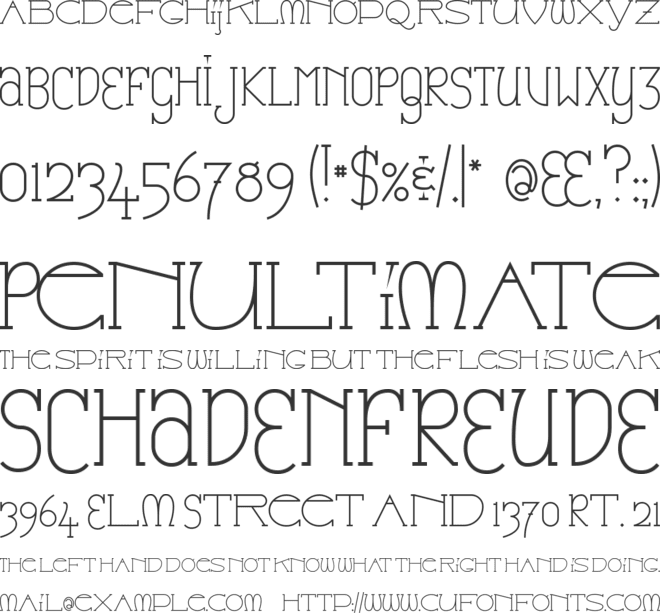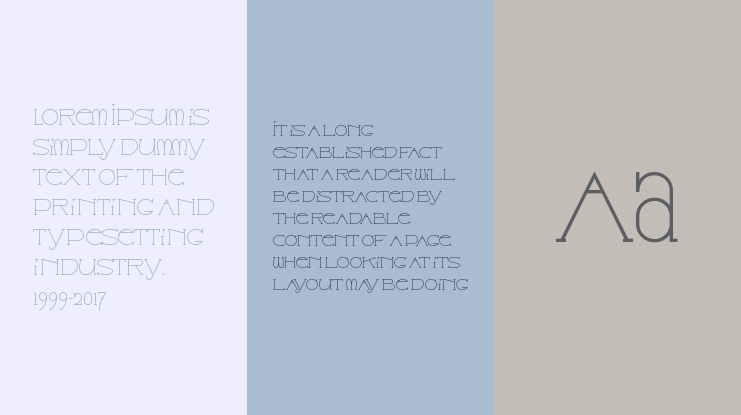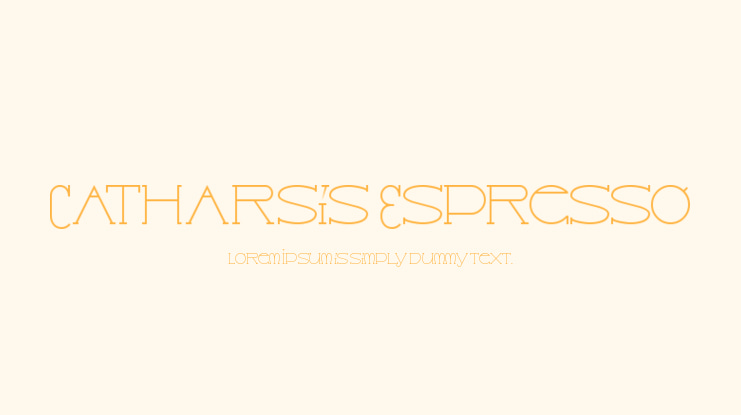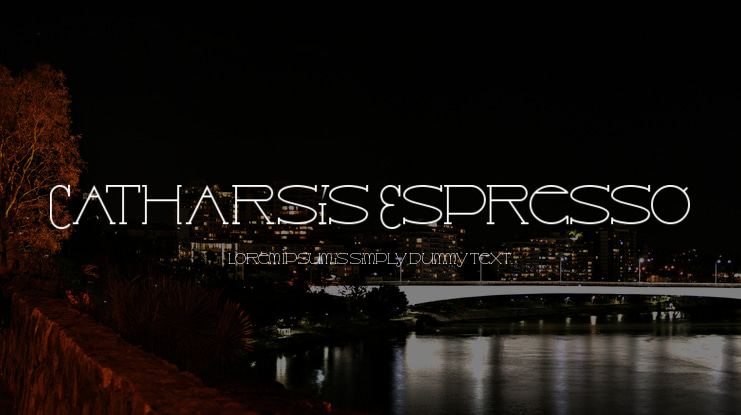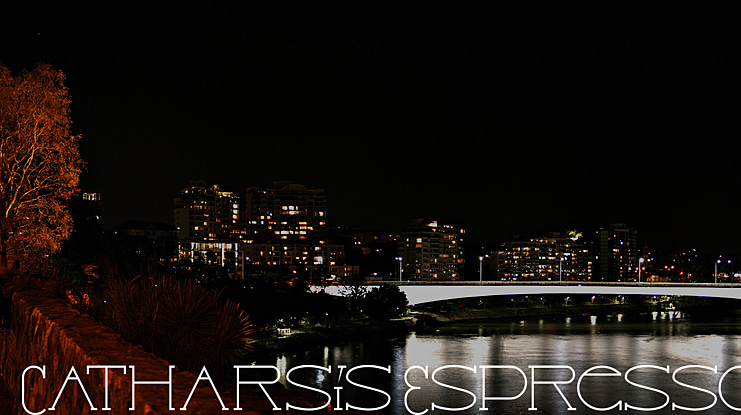
Catharsis Espresso Font
A sister font of Catharsis Macchiato, Catharsis Espresso replaces lowercase letters with extrawide uppercase, and provides a few alternate letter shapes as well as ligatures. The disclaimer about the Itchy Dog logo also applies here.